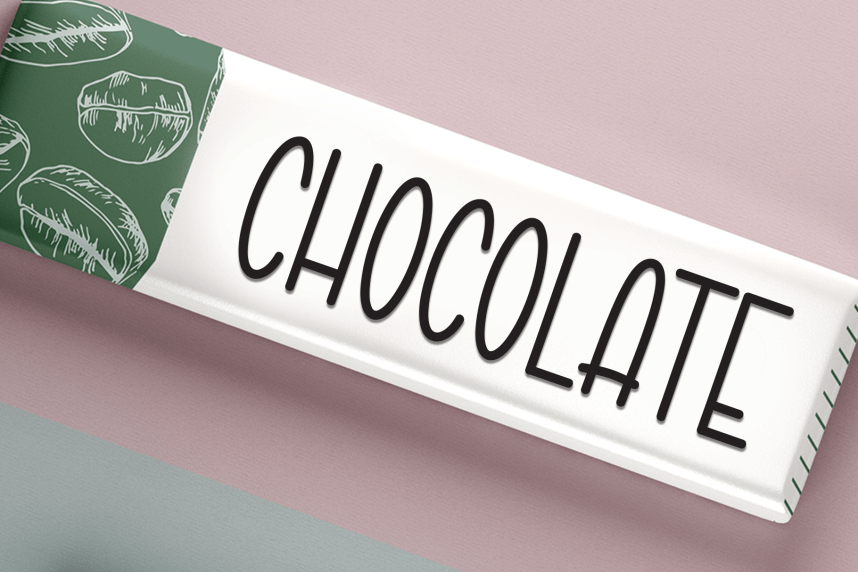
Heartbeat Handmade Font
Heartbeat Handmade Font is a sweet and friendly handwritten display font. Cute and fun, this font is ideal for writing wedding invitations, cards, or any other design that might need a playful touch!